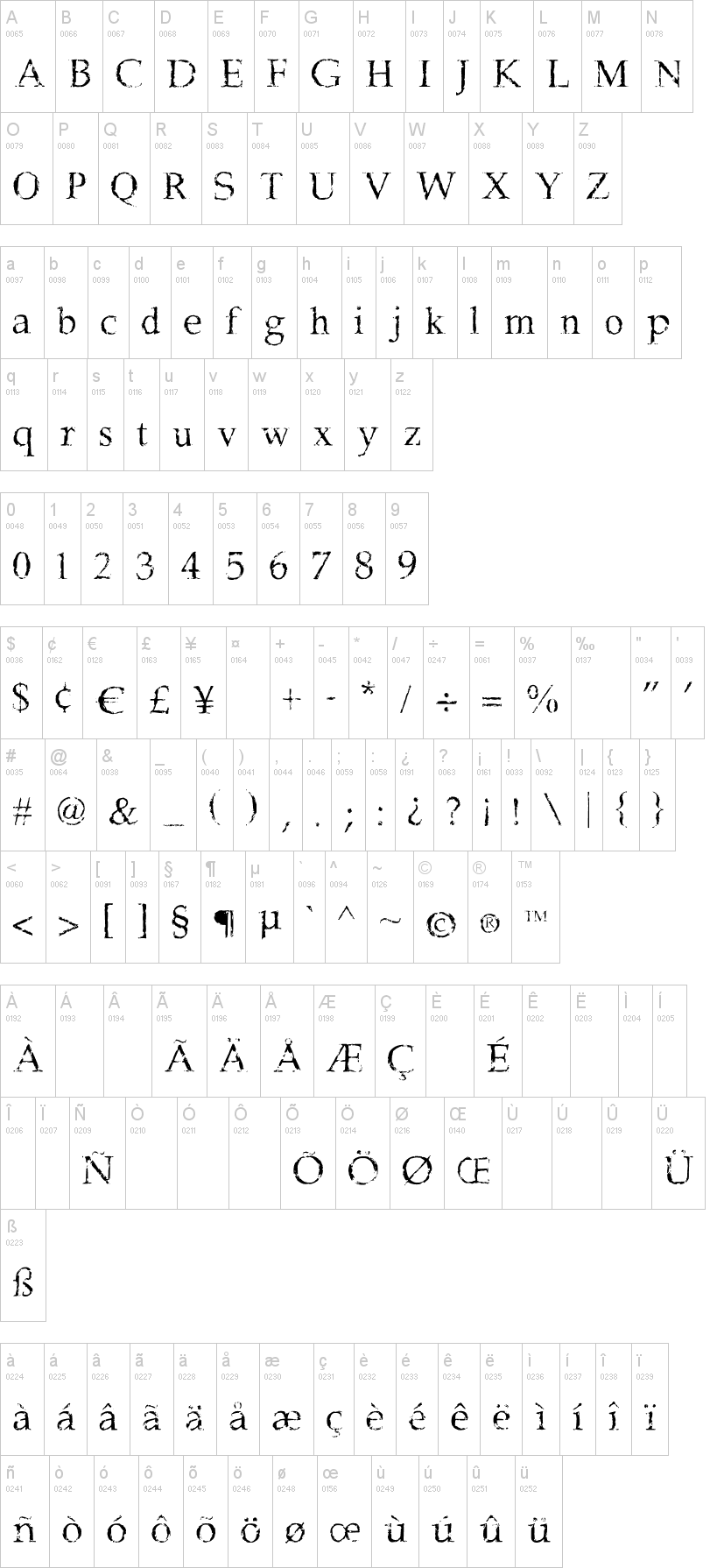
Note of the authorSince I'm a big fan of the Millennium Series by Chris Carter, I tried to build something close to the letters used on the series logo. It's not a 1:1 copy of the original letters, more like a variation of it. Hope you like it. Btw: my first selfmade font yet.